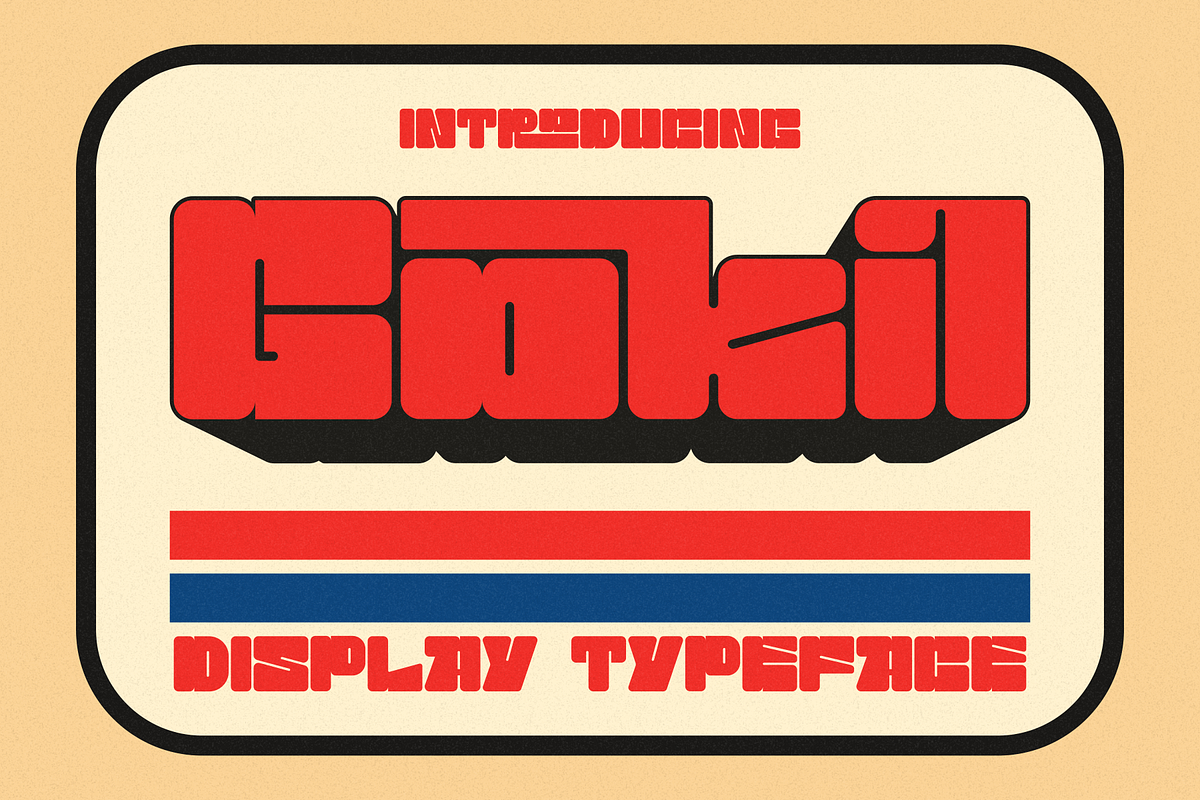
Gokil Font Free Download is a bold, modern, and dynamic typeface designed for those who want their designs to stand out. With its sharp edges and contemporary structure, Gokil is perfect for logos, posters, headlines, and branding materials that need to grab attention instantly.
The unique style of Gokil combines geometric precision with a playful, energetic twist. This makes it ideal for projects in the entertainment, fashion, and tech industries, where creativity and impact are key. Whether you're designing for digital media or print, Gokil provides a strong, memorable look that speaks volumes.